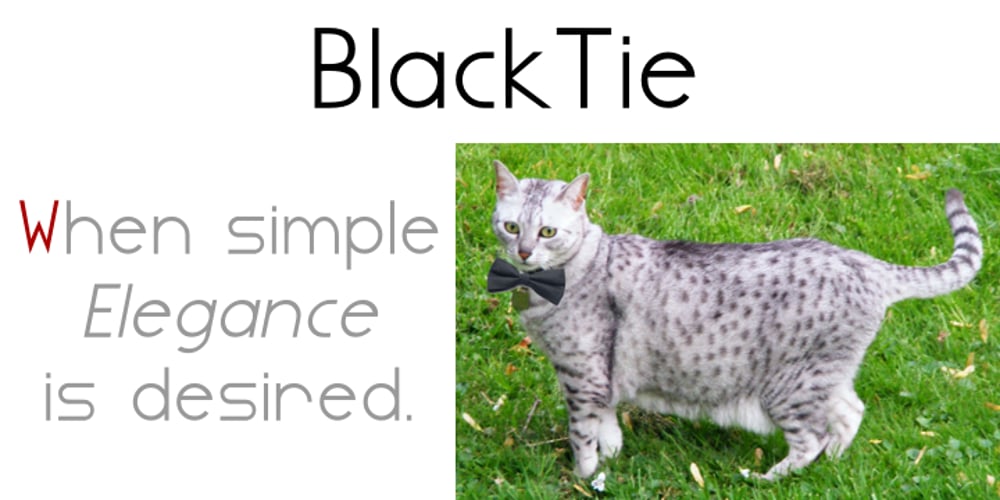
Blacktie
Blacktie font
Blacktie Font Family was designed by Shane Brandes and published by Proportional Lime. Blacktie contains 56 styles and family package options. The font Blacktie is a clean and lean Gothic style font that has over 600 defined characters cast in 12 different styles.